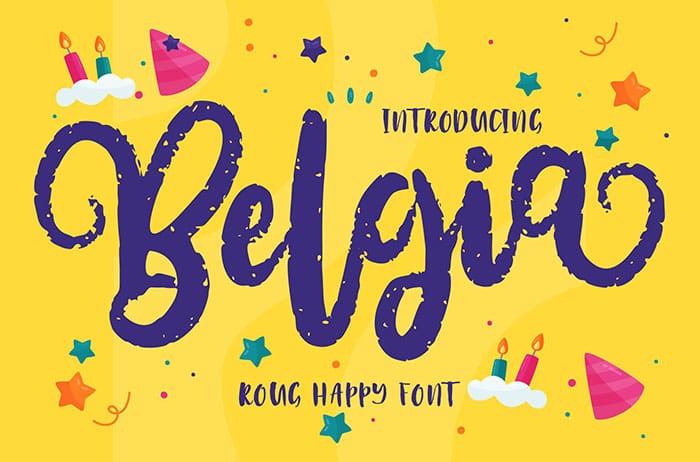
Belgia Decorative Font
Belgia Decorative Font is a happy and cheerful script with a contemporary feel. Perfect to use for party, banner, poster, apparel design, label and etc. Thanks to Vunira for sharing this font. Take a look at this portfolio for more of his stunning fonts.